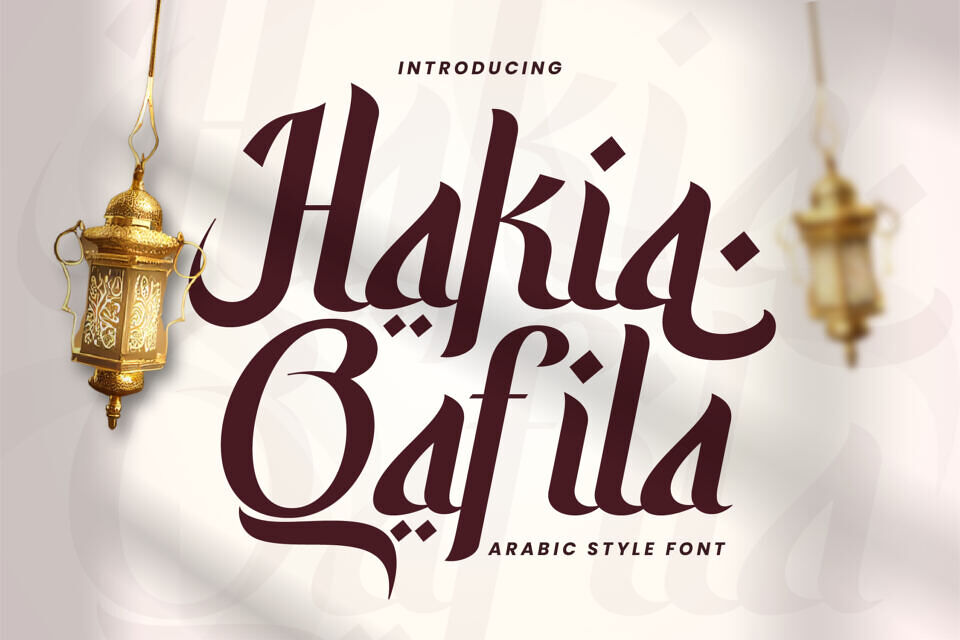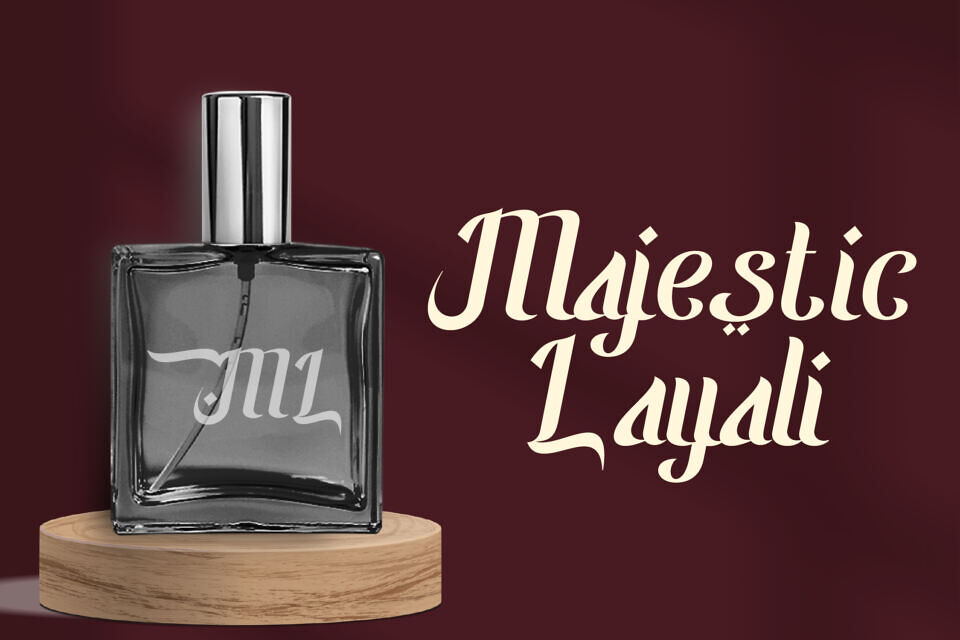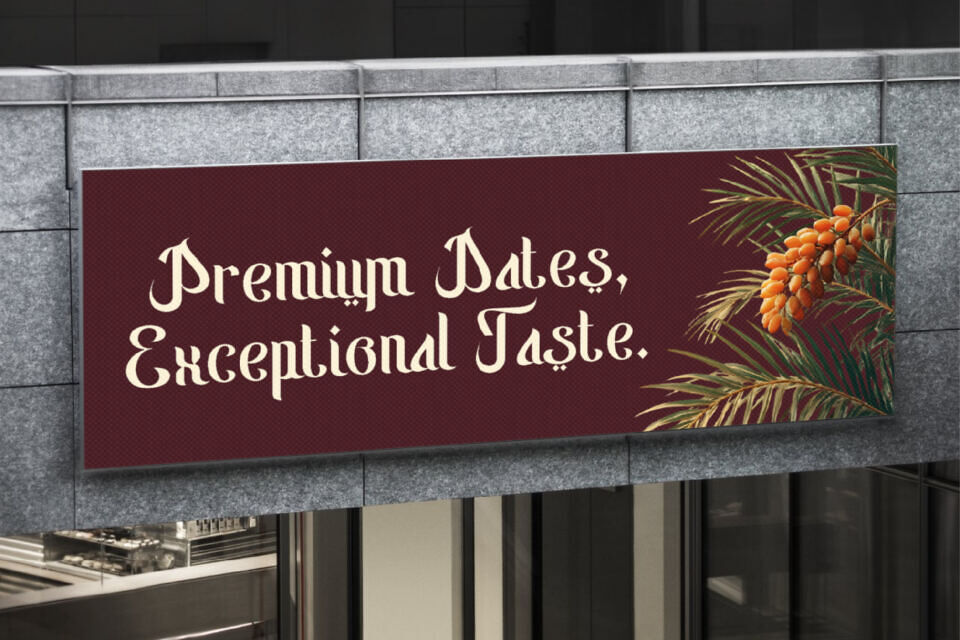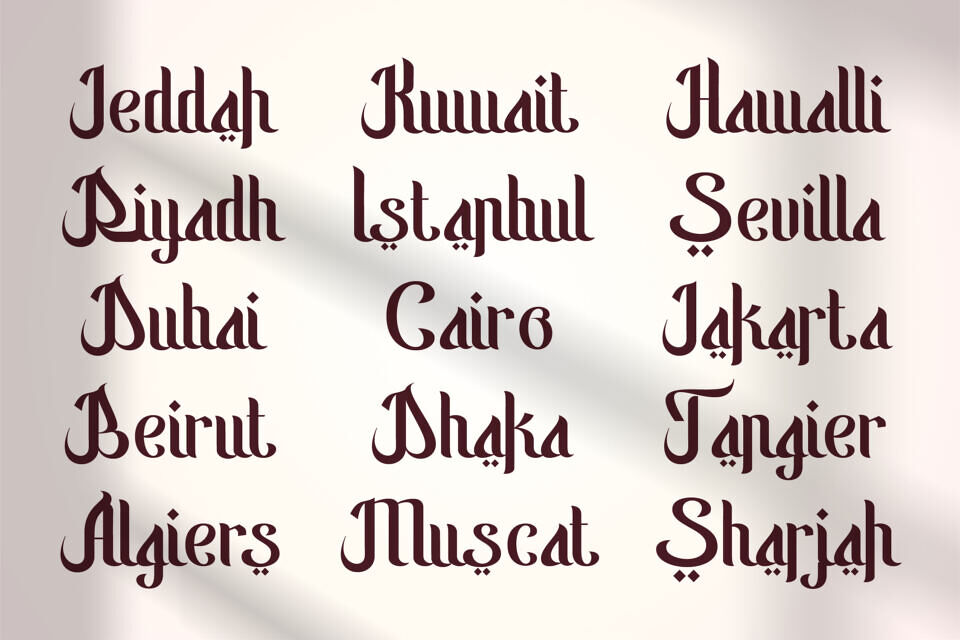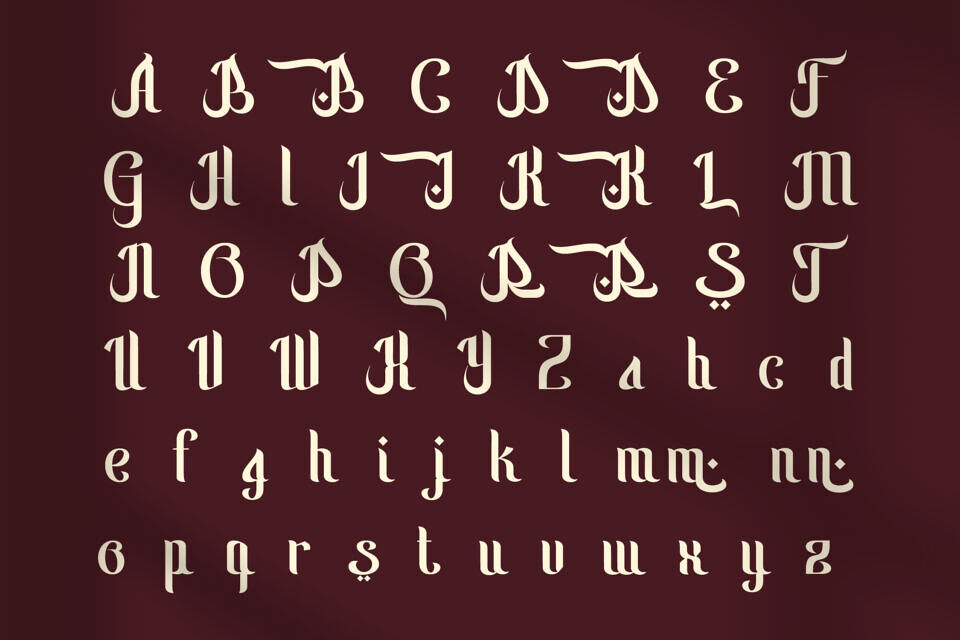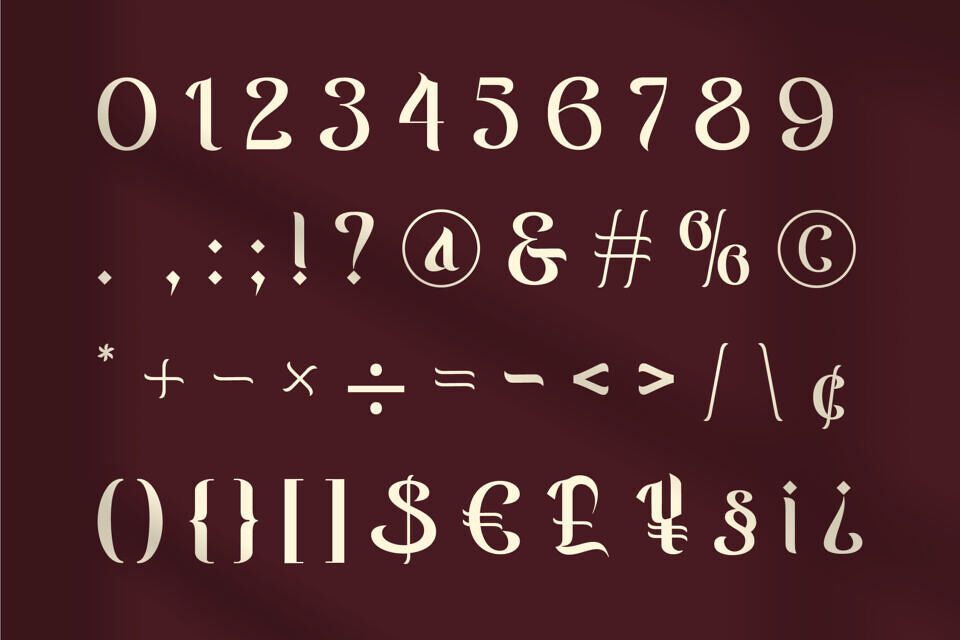
Hakia Qafila is a typeface inspired by ancient trade routes and Middle Eastern culture. It blends Arabic calligraphy with classic serif styles, offering a balance of flowing curves and structured lines.
Available in Regular and Italic styles, it’s suitable for various design needs, from bold headlines to elegant accents. With multilingual support, Hakia Qafila is ideal for global projects with a touch of Middle Eastern flair, perfect for luxury branding, editorials, and cultural themes.